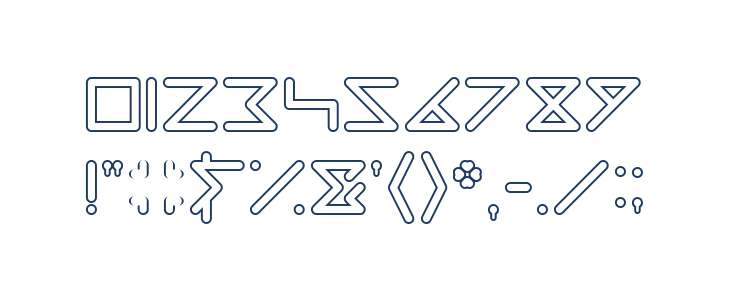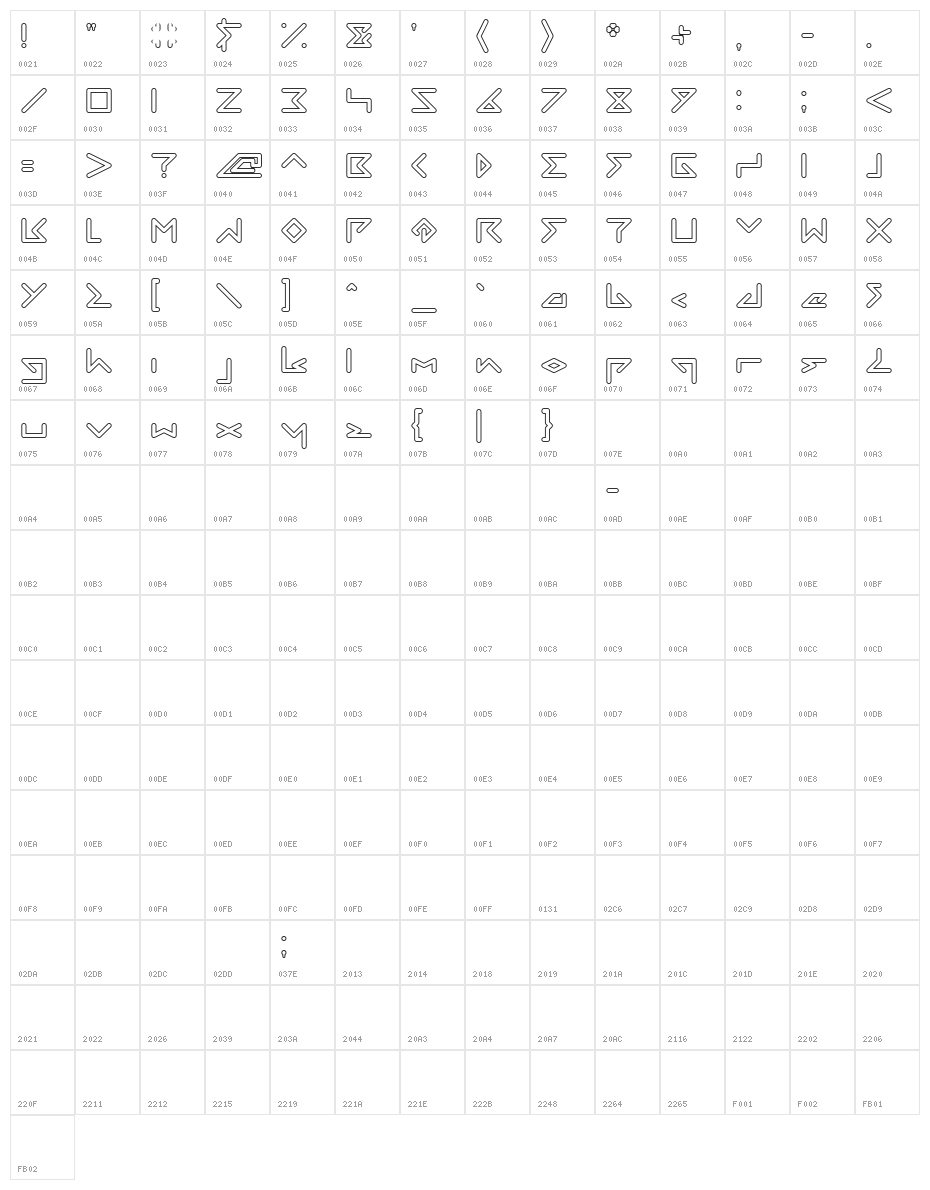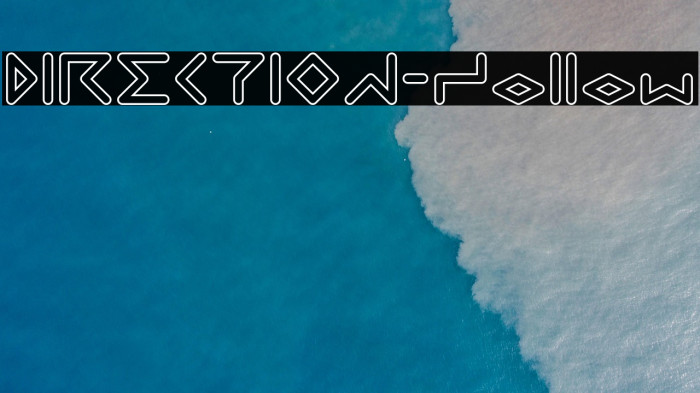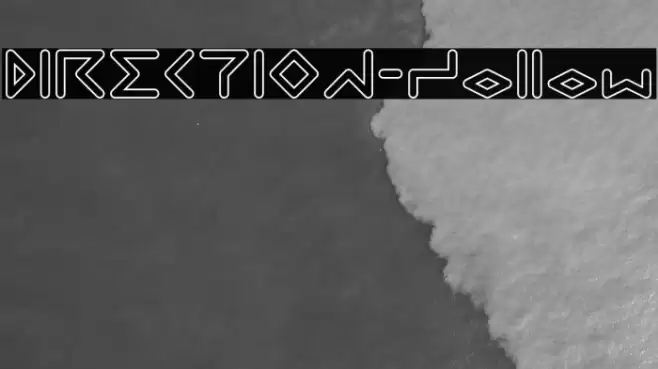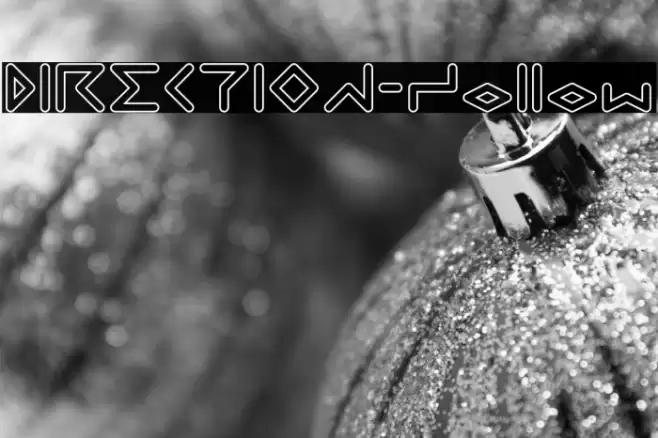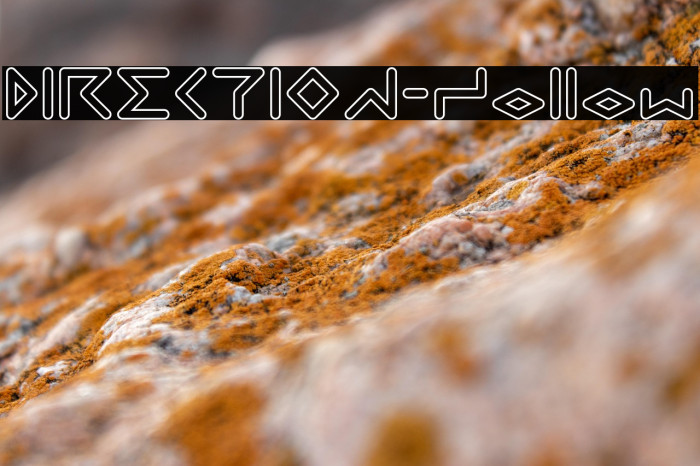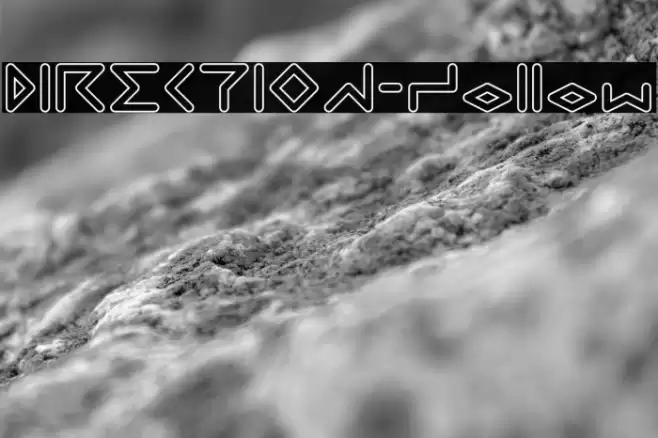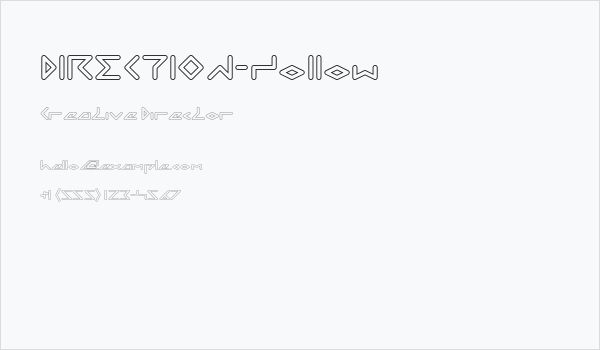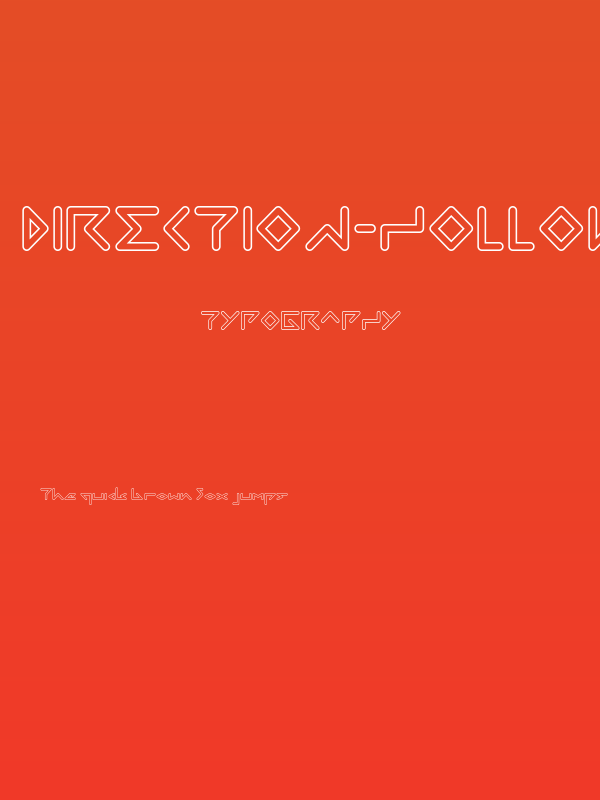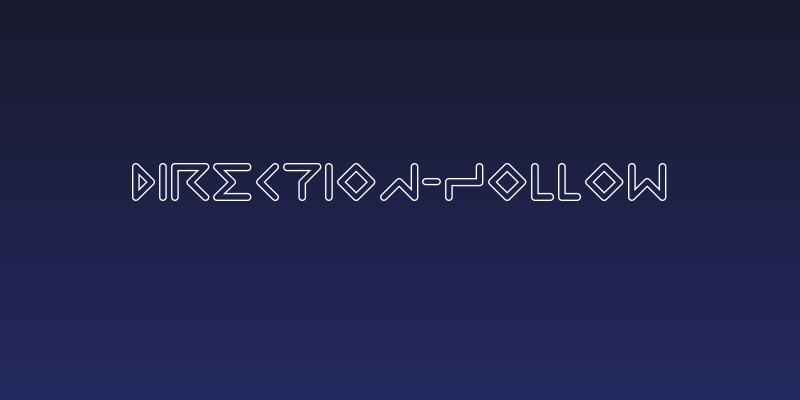
DIRECTION-Hollow Font
DIRECTION-Hollow Description
This font features a unique hollow design with geometric and angular shapes, creating a futuristic and modern aesthetic. The characters are outlined, giving them a distinctive appearance that stands out in any design. The uppercase and lowercase letters maintain a consistent style, with sharp edges and clean lines. Numbers and special characters follow the same design principles, ensuring uniformity across all elements. This font's hollow nature makes it ideal for projects that require a bold yet airy look, allowing backgrounds to show through the characters.
Proposed ProjectsIdeal for sci-fi themed designs, modern posters, digital artwork, and branding that requires a futuristic touch.